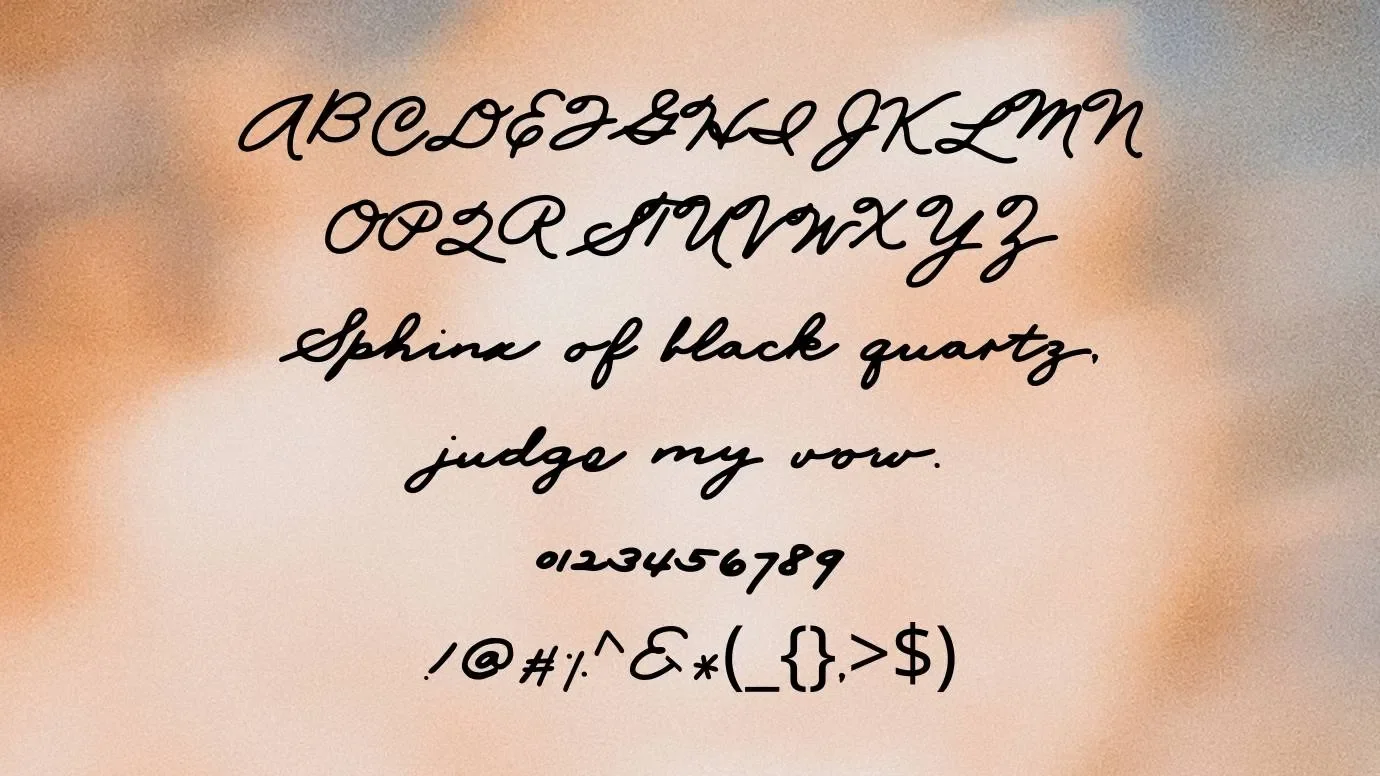
Mix Palmer Script Font is a script handwritten typeface that was designed by Mikko Sumulong. This typeface has attractive hand-drawn characters. This typeface is perfect for creating interesting designs and a good appearance. The demand for this font is so high due to its stylish and hand-crafted letters.
This typeface has 142 characters that consist of numbers, alphabets, punctuations, and currency symbols. Due to its advanced features, many designers pick this typeface for their personal design purposes. It makes a huge place for your projects in the designing market with the help of a combination with the southern font.
Reason to Use Mix Palmer Script Font
You can utilize this typeface for creating high-quality and glossy card designs. It is suitable for numerous organizations and official institutions for their business and private-type projects such as logo designing, banners, advertisements, posters, and many other related purposes.
It is also suitable for your private-type tasks and other different personal designing purposes like banner designs, posters designs, and social media post designs. This modern and stylish font is most useful for different types of official purposes such as fashion magazines, printing projects, and newspapers.
What font is similar to Mix Palmer Script Font?
Crafty Girls Font is the perfect similar font that you can use for various similar designs of this typeface.
Where can we use Mix Palmer Script Font?
You can utilize this font for making scripts and hand-drawn designs that you want to create. It is also useful for making calligraphic designs that are eye-catching and beautiful.
Who created Mix Palmer Script Font?
Mikko Sumulong was designed for the first time with this attractive and gorgeous typeface and belongs to the handwritten typeface.